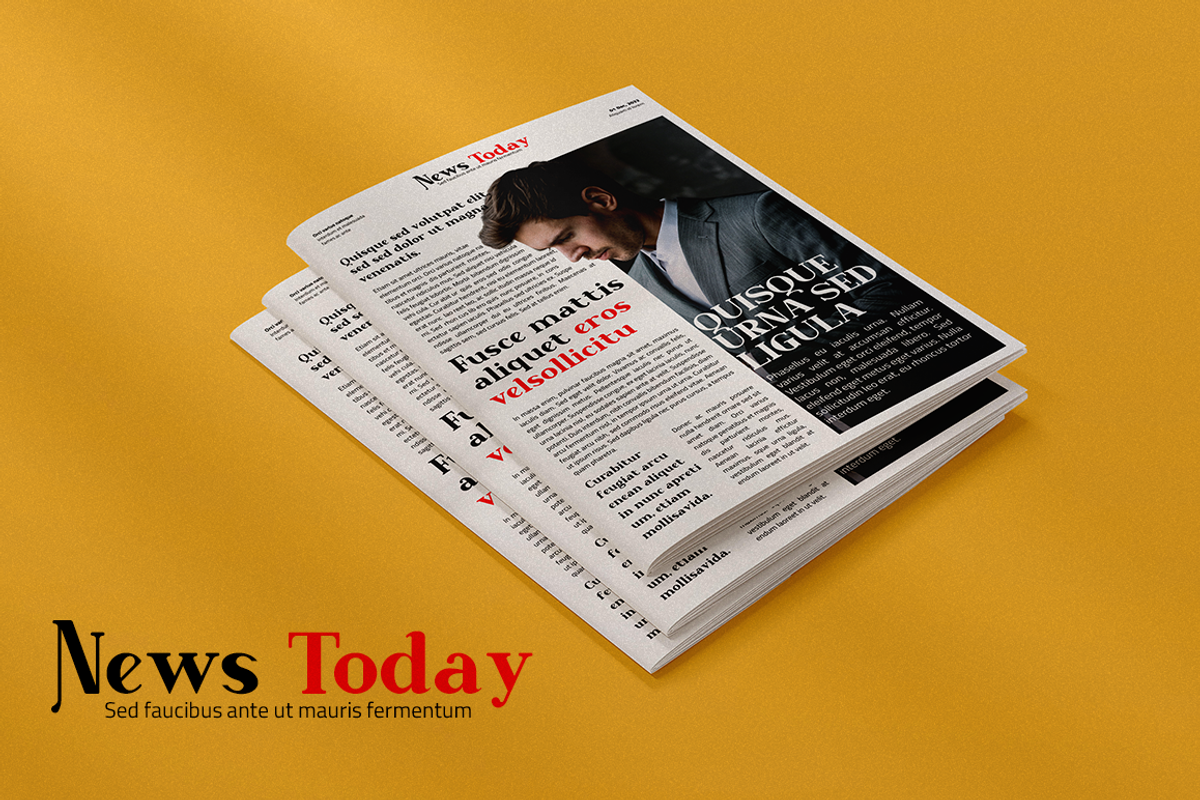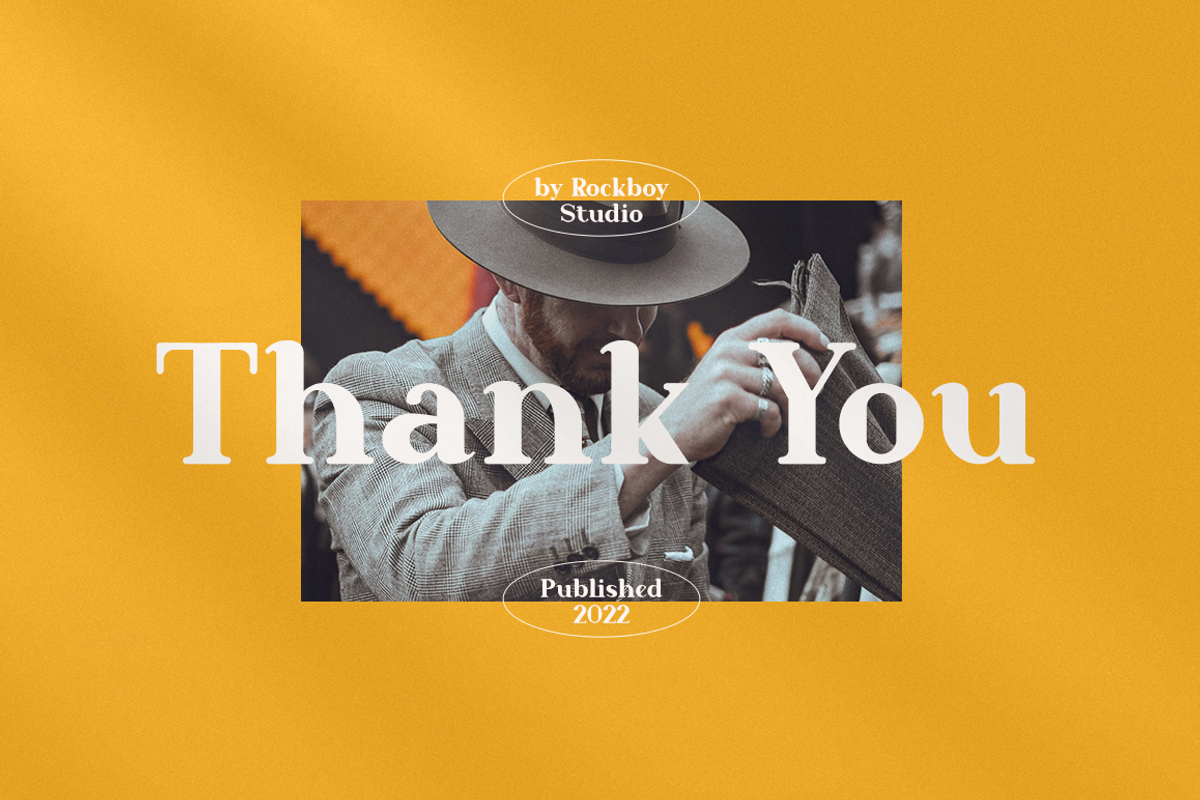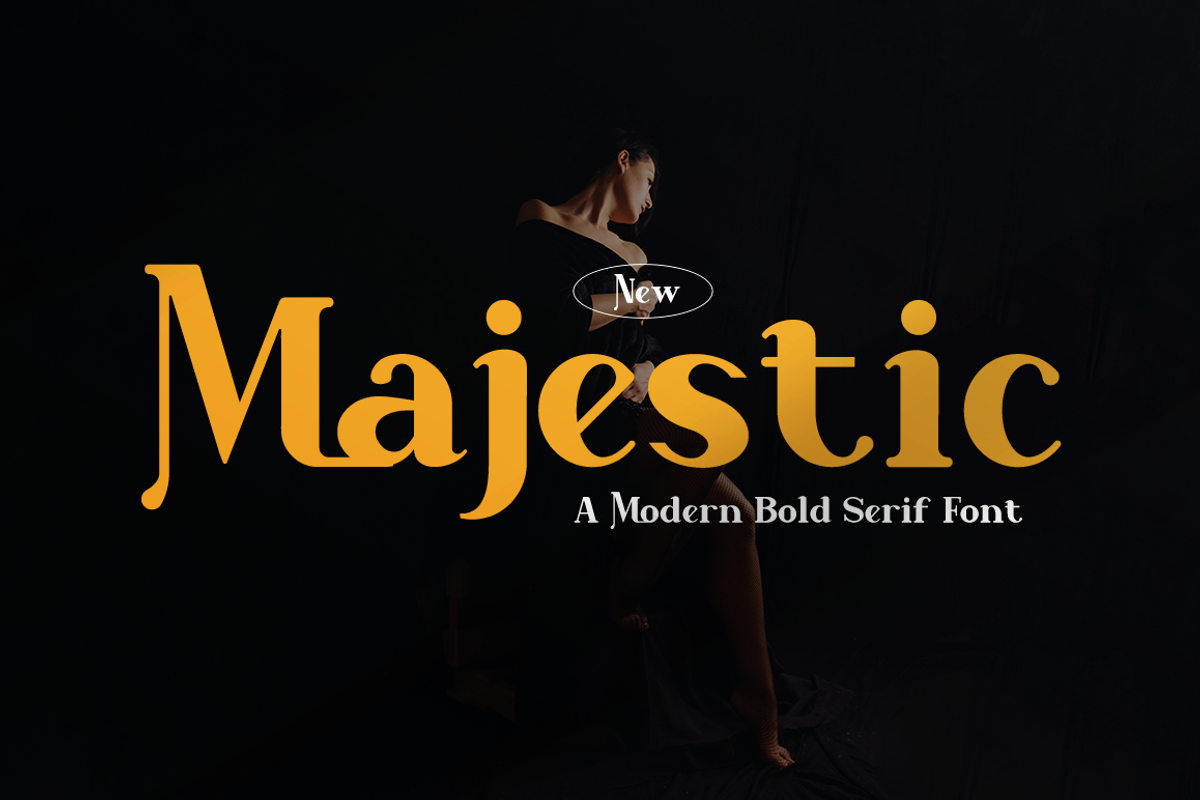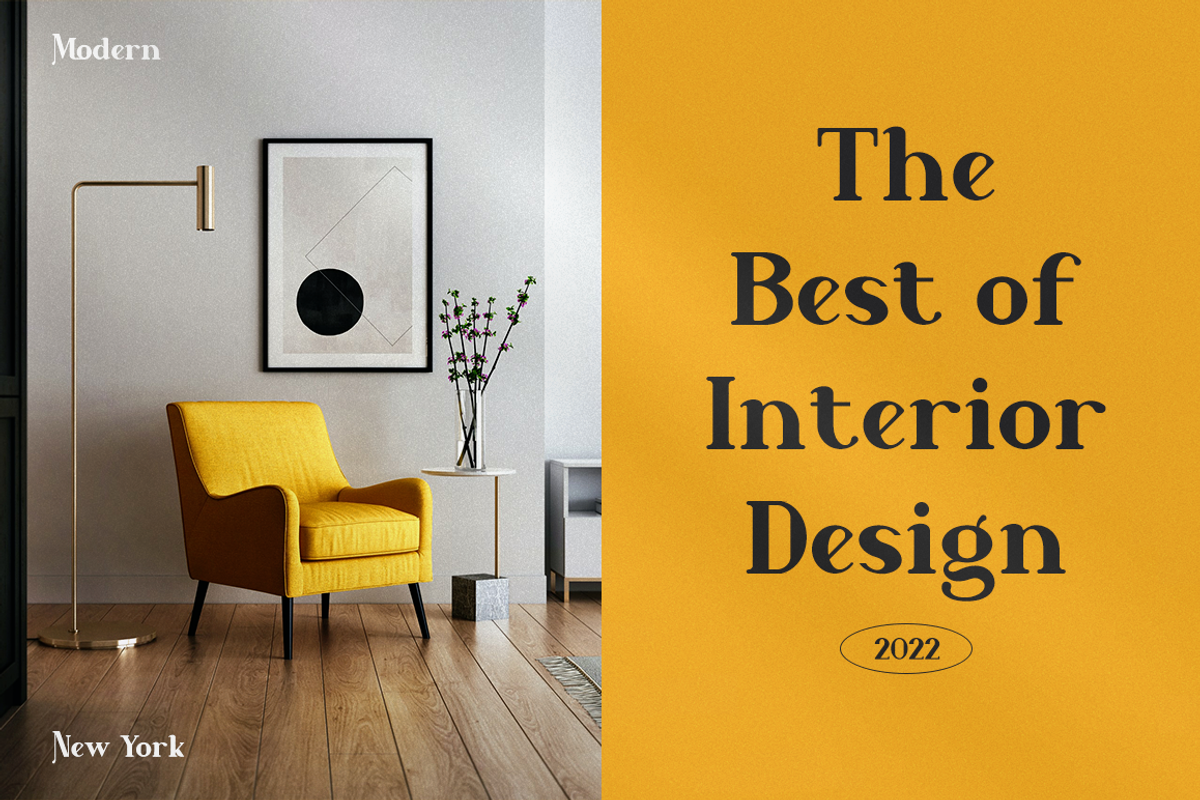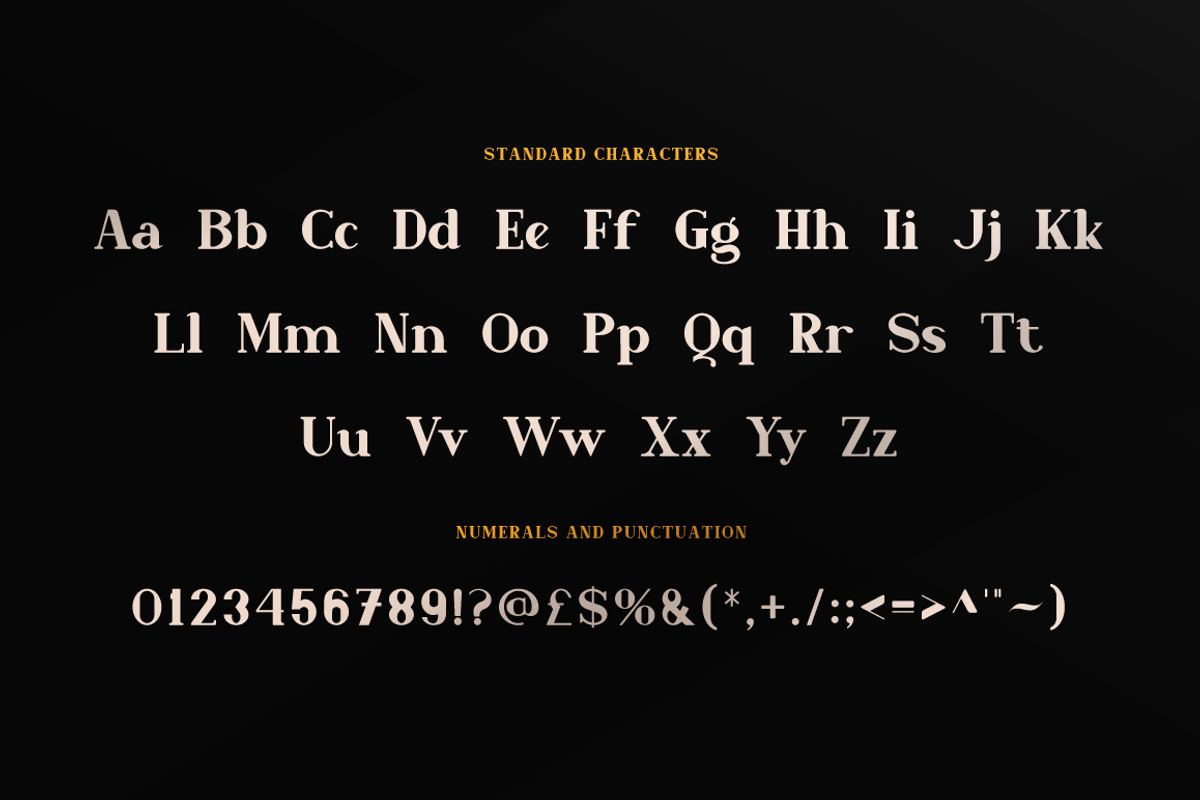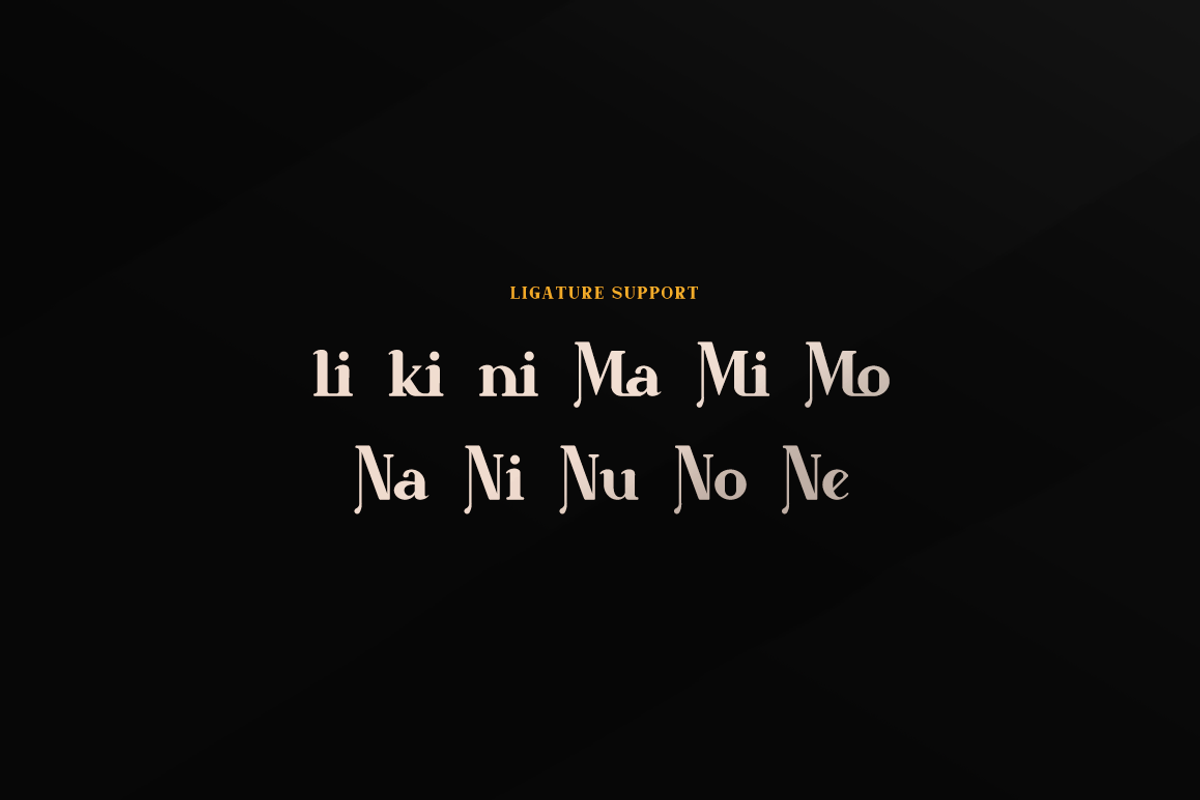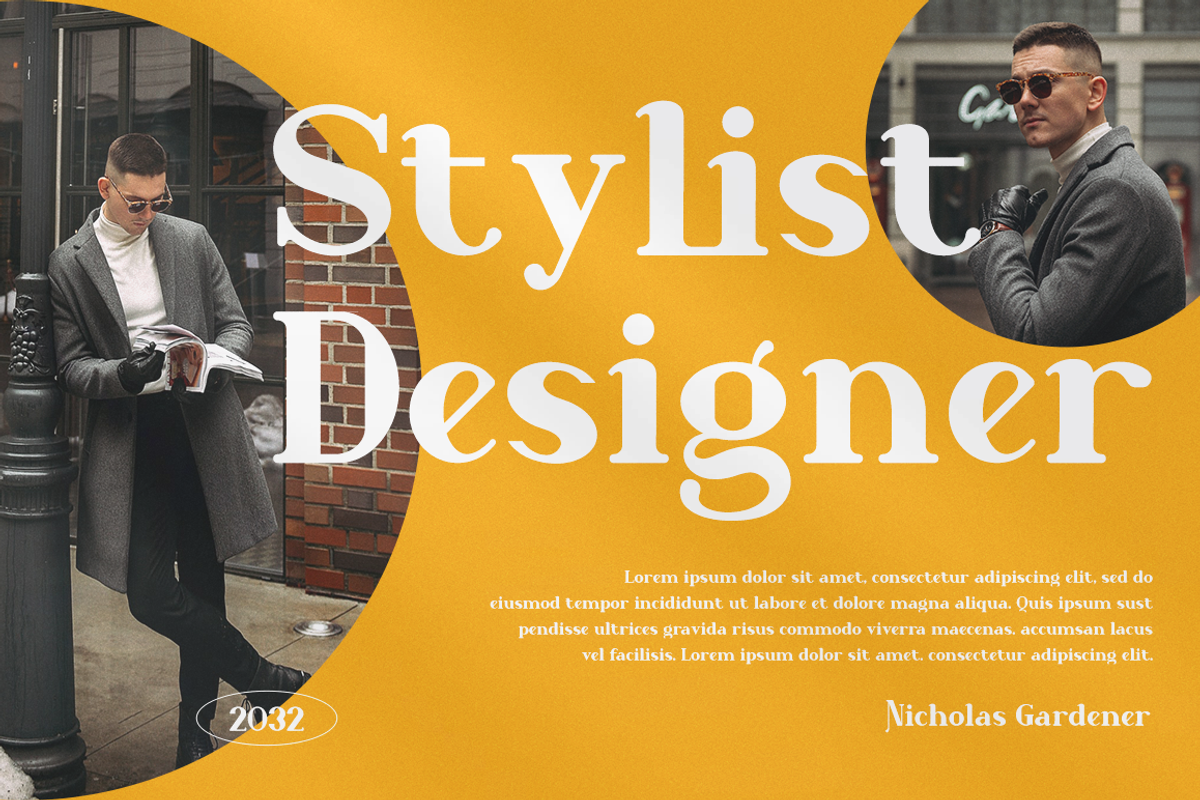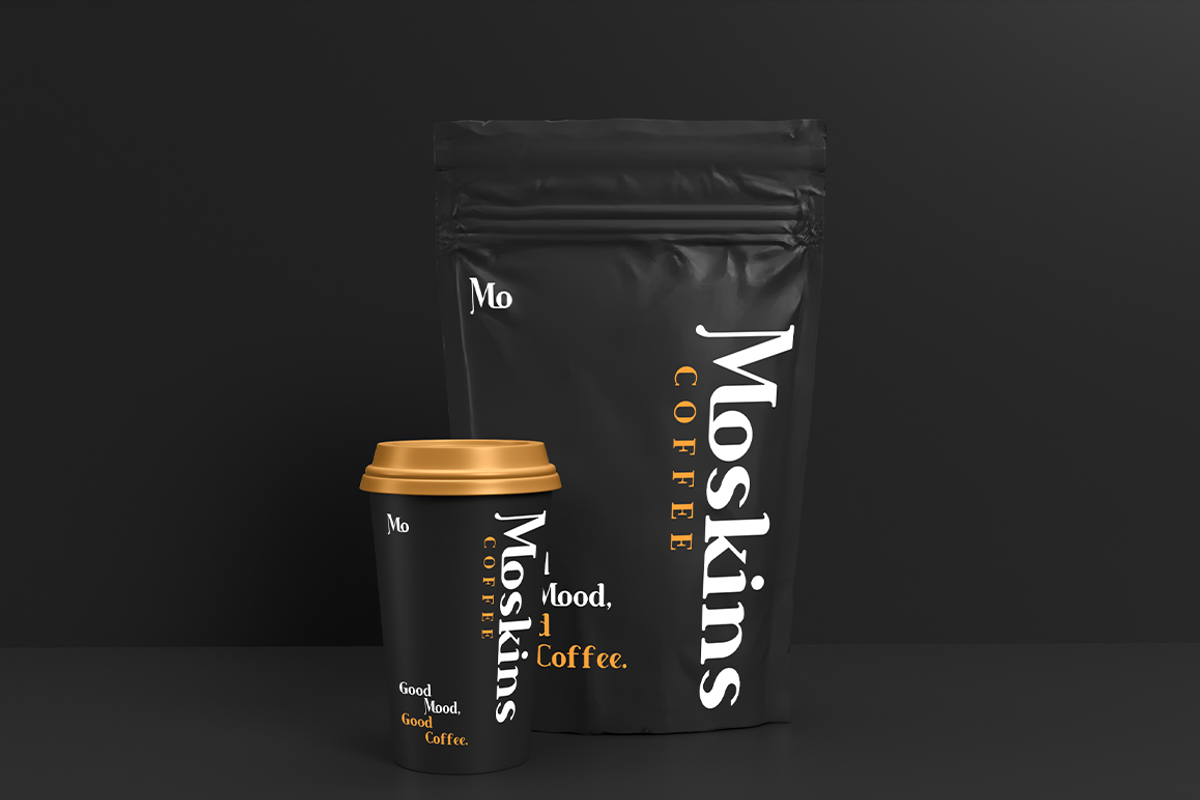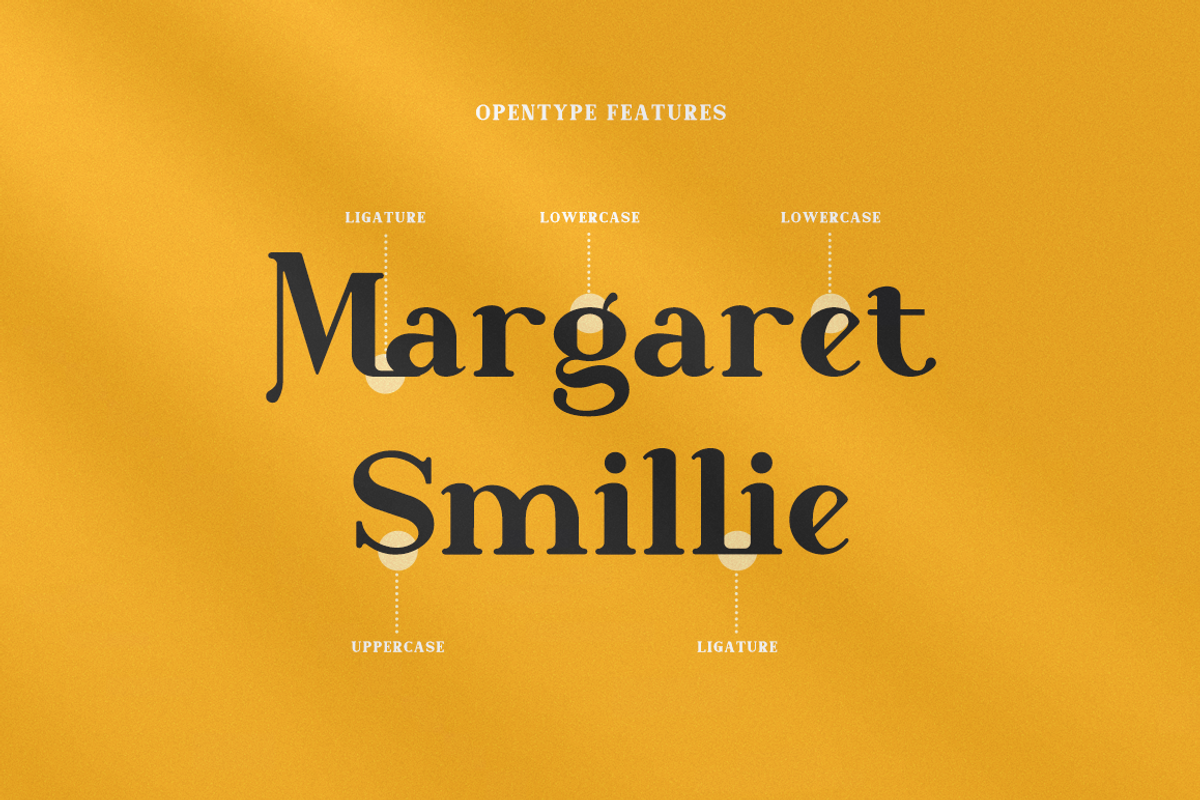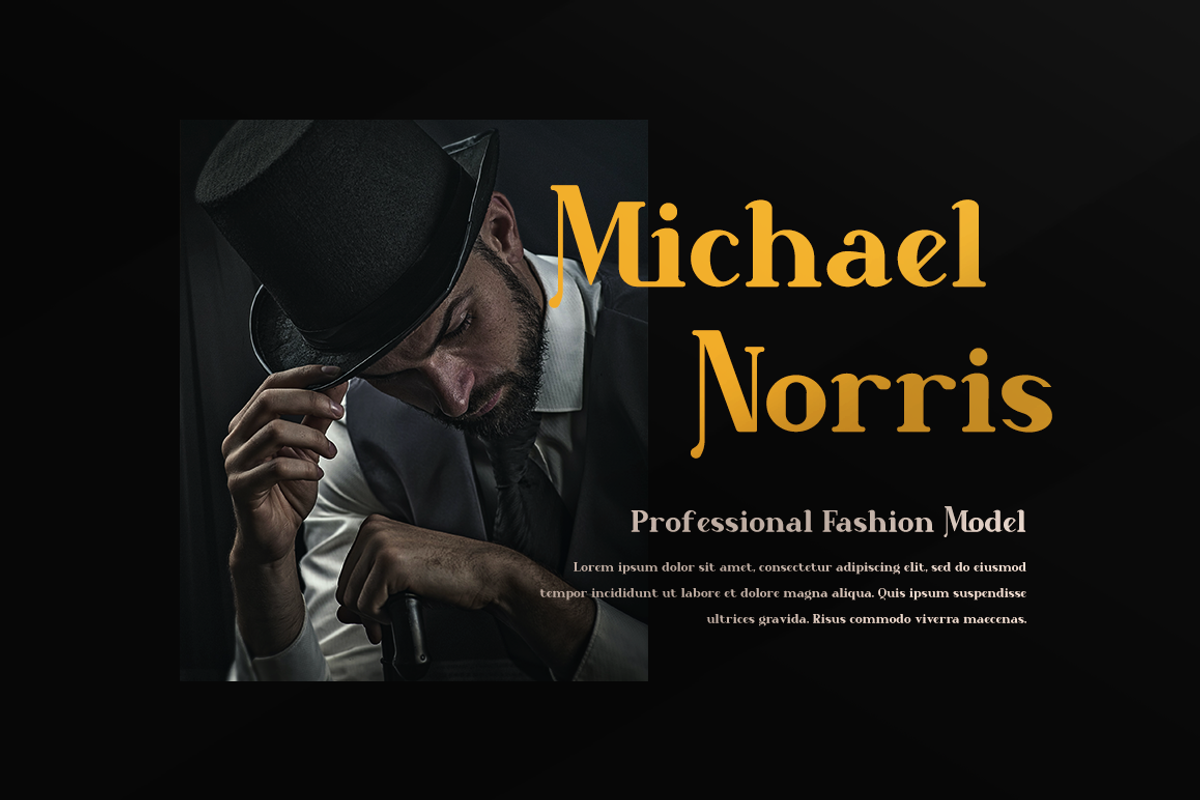
Majestic - Bold Serif Font
Majestic is a distinct and elegant serif font. You can use this modern font for fashion, magazines, cooking websites, quotes, social media posts, labels, and many more!